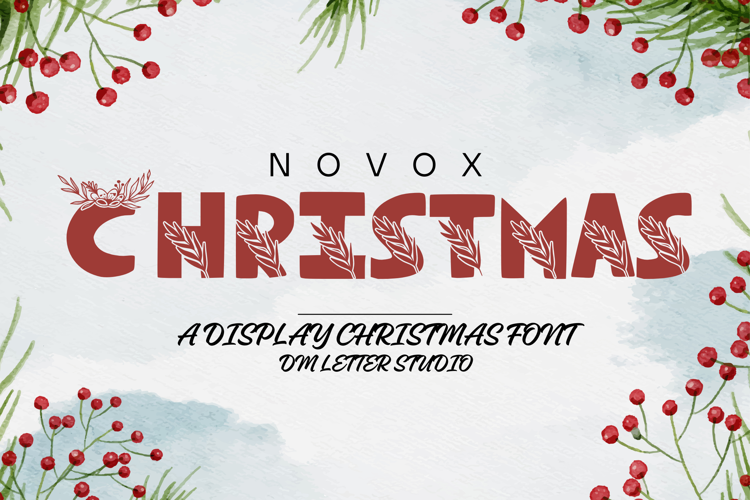
Novox Christmas - Bold Festive Display Font
Novox Christmas – Bold Festive Display Font
Novox Christmas is a bold, cheerful display font infused with holiday spirit. Designed to evoke warmth and celebration, this font features sturdy letterforms with subtle festive flair—perfect for holiday cards, Christmas merchandise, seasonal banners, DIY crafts, and joyful branding. Its bold structure pairs beautifully with sparkling graphics and cozy winter designs.
• Festive Bold Lettering: Strong, blocky characters with a joyful holiday vibe.
• Holiday-Ready Style: Ideal for Christmas cards, gift tags, party invites, advent calendars, and packaging.
• Warm & Playful Energy: Brings excitement and coziness to your winter designs.
• All-Caps Display Font: Ensures maximum visibility and aesthetic consistency.
• Easy to Use: Clean letterforms make it perfect for both print and digital projects.